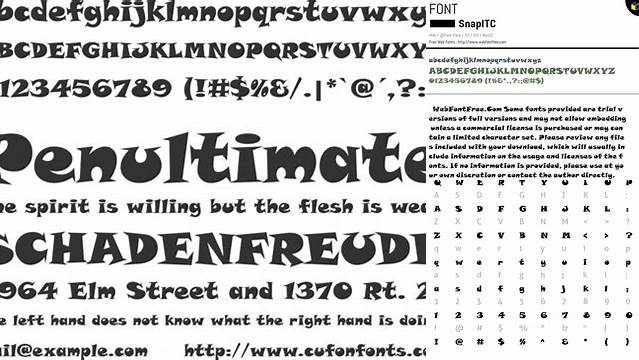
ITC Snap Font Free Download: The Ultimate Guide
Hey guys! Are you on the hunt for the ITC Snap Regular Font? You've landed in the right spot! This font is super popular for adding a playful and eye-catching vibe to your projects. Whether you're designing a poster, crafting a logo, or just sprucing up your website, ITC Snap can be a fantastic choice. In this article, we'll dive deep into everything you need to know about this awesome font, including how to snag it for free (or at least explore your options!), its uses, and some tips for making the most of it. So, let's get started and unravel the world of ITC Snap Regular Font!
What is ITC Snap Regular Font?
Before we jump into the nitty-gritty of downloading, let's chat about what ITC Snap Regular Font actually is. This font is a real gem in the world of typography, known for its distinctive, hand-lettered style. Imagine the kind of lettering you'd see on a vintage comic book or a retro advertisement – that's the vibe ITC Snap gives off. It's bold, it's playful, and it's got a unique personality that can make your designs really pop. ITC Snap falls into the category of casual or novelty fonts, making it perfect for projects where you want to convey a sense of fun and informality. It's not your go-to for serious, corporate documents, but it's absolutely brilliant for anything that needs a touch of whimsy. The font features thick, rounded strokes and a slightly condensed form, which gives it a friendly and approachable feel. Each letter has its own quirky character, making the overall effect lively and engaging. Think about using it for things like party invitations, children's books, or even branding for a creative business – ITC Snap can really help you stand out from the crowd. Its impact lies in its ability to capture attention and inject a dose of personality into any design. The charm of ITC Snap is also rooted in its versatility. While it’s primarily used for display purposes (headlines, titles, logos), its clean lines and clear structure mean it remains legible even at smaller sizes. This makes it a practical choice for a range of applications, from print to digital. Plus, its unique aesthetic ensures that your message is delivered with a memorable flair. When you choose ITC Snap, you're not just picking a font; you're selecting a visual voice that speaks volumes about your brand or project. It’s a font that says, “We’re fun, we’re creative, and we’re here to make an impression!” So, with its distinctive style and playful character, ITC Snap Regular Font is a fantastic addition to any designer's toolkit.
Why is ITC Snap Regular Font So Popular?
You might be wondering, why all the hype around ITC Snap Regular Font? What makes it such a favorite among designers and creatives? Well, there are several reasons why this font has stood the test of time and continues to be a popular choice. First and foremost, its unique aesthetic is a major draw. As we discussed earlier, ITC Snap has that distinctive hand-lettered, comic book-inspired feel that instantly grabs attention. In a world where so many fonts can look generic and similar, ITC Snap stands out from the crowd. It's got personality, it's got character, and it's got that special something that makes people take notice. Think about it – when you see a headline or a logo set in ITC Snap, it's hard to ignore. This is a huge advantage when you're trying to create designs that are memorable and impactful. Another key factor in ITC Snap's popularity is its versatility. While it's definitely a font with a strong personality, it's also surprisingly adaptable. It works well in a variety of contexts, from print materials like posters and flyers to digital designs like website headers and social media graphics. It's equally at home in projects aimed at children and those targeting a more general audience. This flexibility means that designers can reach for ITC Snap again and again, knowing that it can deliver the right look and feel for a wide range of projects. Beyond its visual appeal and versatility, ITC Snap also benefits from its readability. Despite its quirky, hand-drawn style, the font remains surprisingly legible, even at smaller sizes. This is crucial, because no matter how cool a font looks, it's useless if people can't actually read it. ITC Snap strikes a great balance between style and function, ensuring that your message is both eye-catching and clear. The nostalgic factor also plays a role in ITC Snap's enduring popularity. Its retro vibe evokes a sense of nostalgia, reminding people of classic comics, vintage advertisements, and the good old days. This can be a powerful tool for designers looking to tap into emotions and create a connection with their audience. When a font triggers positive memories and associations, it can make a design even more effective. ITC Snap is more than just a font; it's a vehicle for conveying feelings and creating a memorable visual experience. All these elements—its distinctive look, its adaptability, its readability, and its nostalgic charm—combine to make ITC Snap Regular Font a standout choice in the world of typography. It’s a font that has earned its place in the design hall of fame, and it’s likely to remain a popular option for years to come.
How to Use ITC Snap Regular Font Effectively
So, you've got your hands on ITC Snap Regular Font – awesome! Now, let's talk about how to use it effectively. Just like any design tool, a font is only as good as the way you wield it. ITC Snap, with its distinctive personality, requires a bit of finesse to ensure it enhances your design rather than overwhelming it. One of the key things to keep in mind is context. ITC Snap is a casual, playful font, so it's best suited for projects where that kind of vibe is appropriate. Think about things like invitations, posters, children's books, and branding for creative businesses. It might not be the best choice for formal documents, corporate reports, or anything that needs to convey a sense of seriousness or professionalism. Using ITC Snap in the wrong context can feel jarring and out of place. Hierarchy is another important consideration. ITC Snap is a font that loves to be the star of the show, so it works particularly well for headings, titles, and logos. It's less ideal for large blocks of body text, as its quirky style can become tiring to read over long stretches. Use it sparingly and strategically to draw attention to key elements of your design. Think about pairing ITC Snap with a simpler, more neutral font for body text to create a balanced and readable composition. Pairing fonts is an art in itself, and choosing the right companion for ITC Snap can make a big difference. A classic approach is to pair a display font like ITC Snap with a clean, sans-serif font for body text. This creates a contrast that's both visually appealing and highly legible. Fonts like Arial, Helvetica, or Open Sans can work well as supporting players to ITC Snap's headline act. You could also experiment with pairing it with a serif font, but be mindful of creating too much visual clutter. Keep the overall design clean and cohesive. Color and spacing can also play a significant role in how ITC Snap is perceived. Because it's a bold, attention-grabbing font, consider using it with colors that complement its playful nature. Bright, cheerful hues can enhance its fun vibe, while darker colors can give it a slightly more sophisticated edge. Pay attention to letter spacing and line height as well. Too little spacing can make ITC Snap feel cramped and difficult to read, while too much spacing can dilute its impact. Experiment with different settings to find the sweet spot for your design. Consistency is key in any design project, and this applies to font usage as well. Once you've decided to use ITC Snap, make sure you use it consistently throughout your design. Don't mix it with too many other fonts, and stick to a clear hierarchy to maintain a professional and polished look. Effective use of ITC Snap comes down to understanding its strengths and weaknesses, and using it in a way that complements your overall design goals. With a little practice and attention to detail, you can make this font a powerful asset in your creative toolkit. So go ahead, experiment, and have fun with it!
Alternatives to ITC Snap Regular Font
Okay, let's say you're loving the vibe of ITC Snap Regular Font, but you're either having trouble finding it or you just want to explore some alternatives. That's a smart move! There's a whole universe of fonts out there, and discovering similar options can expand your design horizons. The good news is, there are plenty of fonts that capture that hand-lettered, comic book-inspired feel of ITC Snap. Let's dive into some of the best alternatives you might want to check out. One great place to start is by looking at fonts with a casual or novelty style. These fonts often share ITC Snap's playful and informal character. Think about fonts with rounded letterforms, slightly irregular lines, and a friendly, approachable feel. Fonts in this category are perfect for projects where you want to convey a sense of fun and personality. Some specific fonts that come to mind as good alternatives include Kavoon, a Google Font that has a similar bold and playful style; Luckiest Guy, another Google Font with a hand-drawn feel; and Bangers, a font that's directly inspired by comic book lettering. These fonts offer a similar visual impact to ITC Snap, and they're all available for free on Google Fonts, making them a very accessible option. Another avenue to explore is handwritten fonts. These fonts often mimic the look of natural handwriting, which can give your designs a personal and authentic touch. While they might not have the exact same comic book vibe as ITC Snap, they can still be a great way to add personality to your projects. Look for fonts with a bold, slightly messy style to get a similar effect. You could also consider fonts with a retro or vintage aesthetic. These fonts often have a distinctive character that can make your designs stand out. Fonts that evoke the look of old advertisements, posters, or signage can be a good fit if you're aiming for a nostalgic feel. Just be sure to choose a font that's legible and works well in your chosen context. When you're looking for alternatives, it's helpful to consider the specific qualities that you like about ITC Snap. Is it the bold, rounded letterforms? The slightly condensed width? The hand-lettered feel? By identifying these key features, you can narrow down your search and find fonts that share those characteristics. Websites like FontPair and FontReach can be useful resources for discovering fonts that work well together. You can also browse font libraries like MyFonts, Fonts.com, and Adobe Fonts, using keywords like